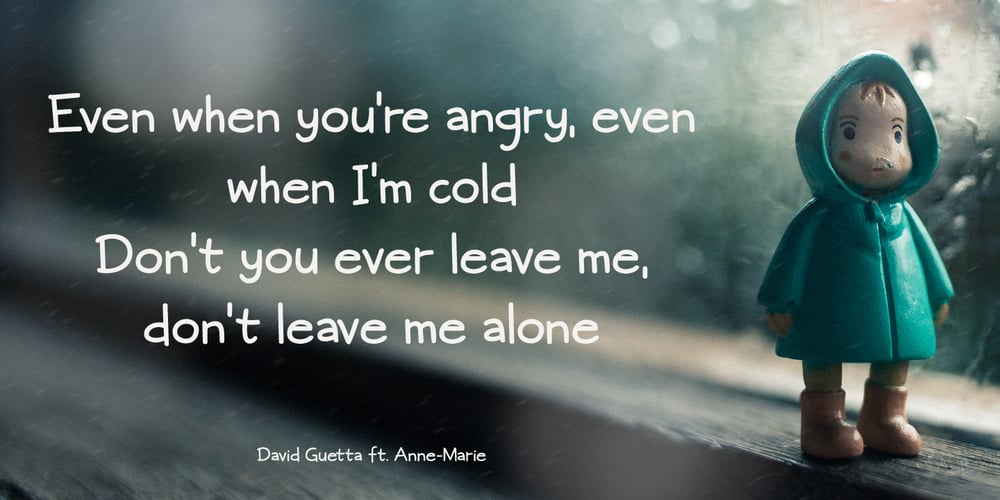
Fictional Friend Font Family was designed by David Kerkhoff and published by Hanoded. Fictional Friend contains 4 styles and family package options. No, I don’t have a fictional friend, nor an imaginary one. Never had! But that name popped up in my head and I used it for this font. Fictional Friend font is a handwritten ‘comic book’ font – sort of. It’s very legible, soft and rounded and comes with all the accents you want!